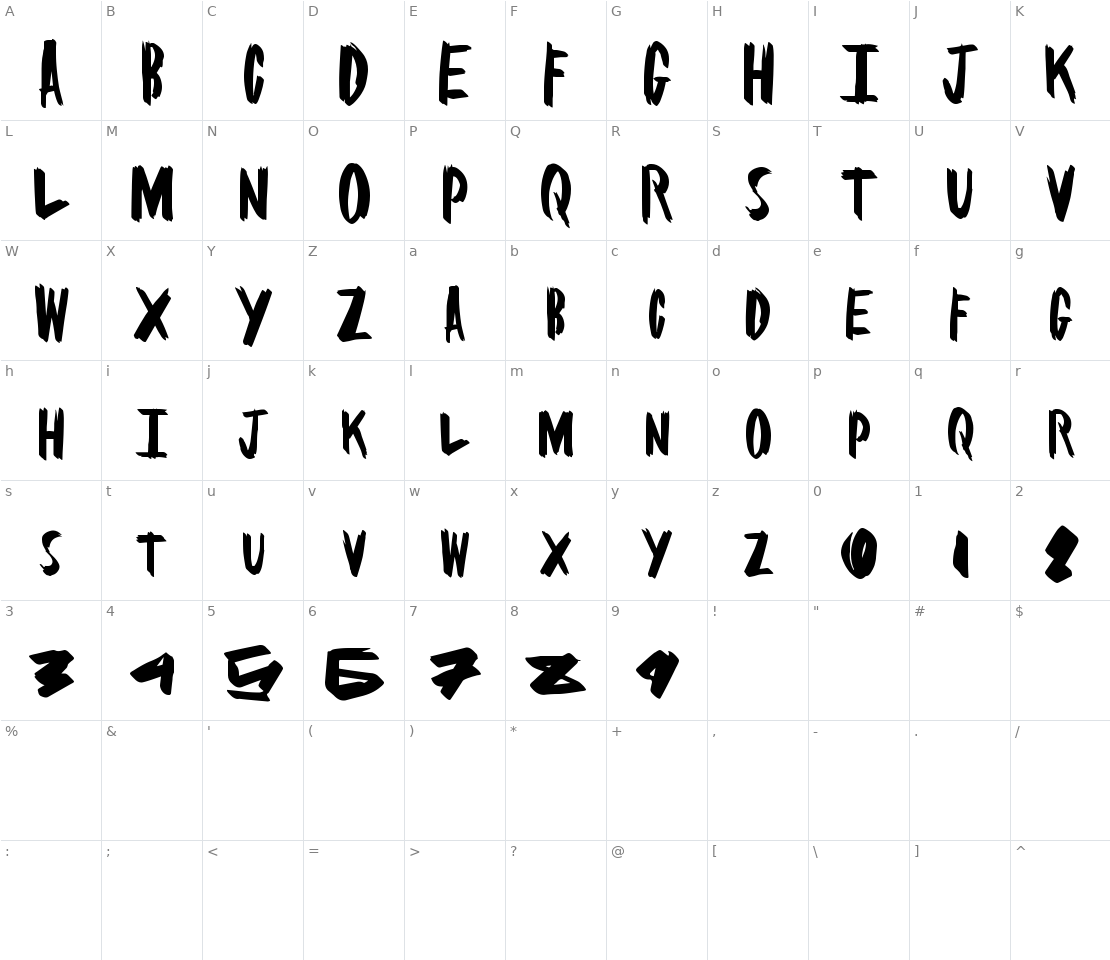
Brush Some
Brush Some is a bold, condensed brush face from Xerographer Fonts with thick, uneven strokes that carry the energy of real paint on paper. The letterforms are rough and irregular, with visible texture and splattery edges that give it a genuinely hand-painted feel rather than a digitally smoothed imitation. Built for headlines, posters, and anywhere you want type that looks like it was laid down fast and with conviction.